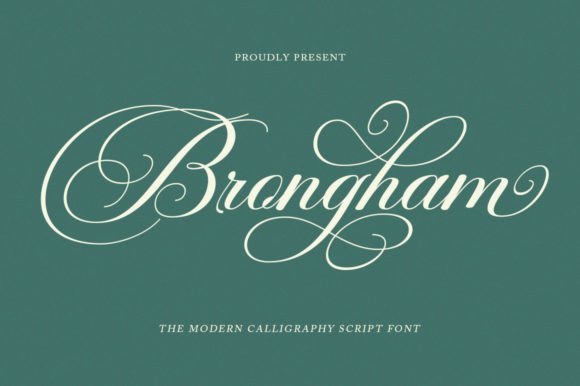
Discover the Timeless Elegance of Brongham Font
As I sat at my desk, surrounded by scattered papers, pens, and a faint scent of coffee, I stumbled upon a design project that needed a touch of sophistication. The client was looking for a font that exuded luxury and refinement, something that would elevate their brand to new heights. That’s when I remembered the Brongham Script – a calligraphy font that has been a game-changer for designers like me.
Brongham Font is a masterclass in elegant typography, boasting beautiful changing characters and a classic copper script with a modern twist. Its high level of detail and smooth, clean design make it a joy to work with, perfect for formal applications like invitations, restaurant menus, and logos.
What sets Brongham Font apart is its versatility and ease of use. With its Unicode PUA encoding, designers can access all the additional characters without requiring special software. This makes it a valuable asset for designers looking to add a touch of sophistication to their projects.
Brongham Font Key Features
- Unique Characteristics: Brongham Font features a distinctive, hand-drawn aesthetic with subtle flair and personality, adding a touch of warmth to digital and print projects.
- Character Set: The font includes a comprehensive character set, including Latin, Greek, and Cyrillic alphabets, as well as a range of punctuation and symbol glyphs.
Brongham Font Review
Overall, I’d say the Brongham font is a decent addition to any designer’s toolkit. Here are some things that work well: ✨
- The Brongham font has a unique, handwritten feel that’s perfect for adding a touch of personality to your designs.
- It’s highly legible, making it a great choice for body text or headings.
- The font’s subtle variations in stroke width and letterform make it look quite dynamic and engaging.
- The Brongham font is a bit too playful for formal or corporate designs, and may not be the best choice for those types of projects.
- It’s not as versatile as some other fonts, and may not be suitable for use in small sizes or as a display font.
- The font’s handwritten feel can sometimes make it difficult to read in certain contexts, such as in lists or tables.
Overall, I’d give the Brongham font 3.5 out of 5 stars. It’s a solid choice for designers who want to add a touch of personality to their work, but it may not be the best fit for every project.
Tips for Getting the Most Out of Brongham Font
Brongham font is ideal for creative projects, such as branding, posters, and infographics. To get the most out of it, use it in bold and italics to add emphasis and contrast.
Brongham font is commonly used in creative projects, such as: